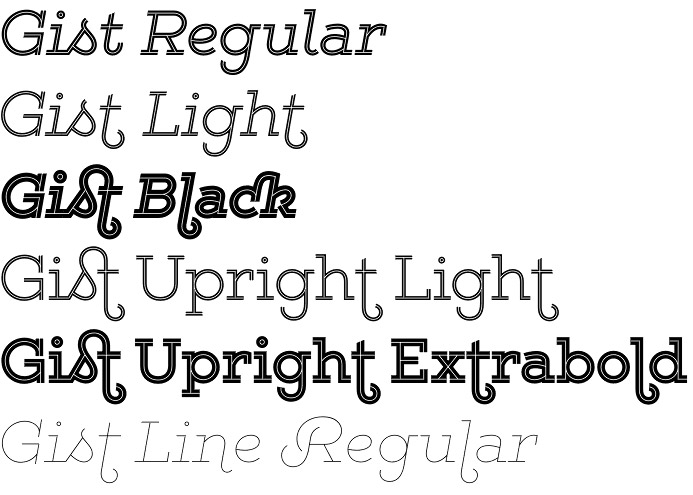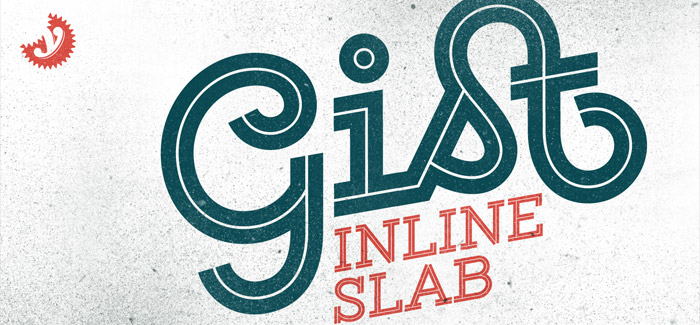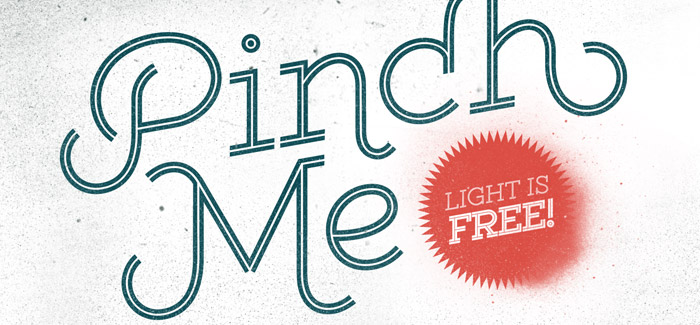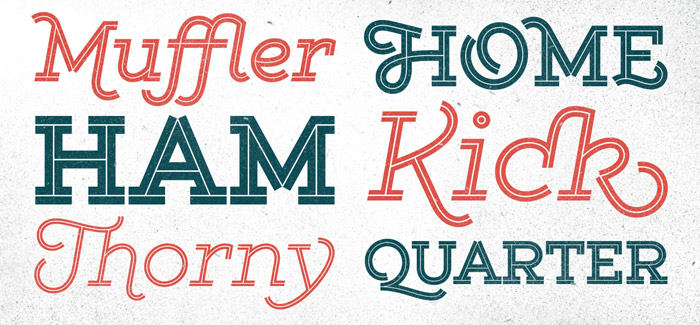
Gist font
Gist font by Ryan Martinson from Yellow Design Studio (check also their Thirsty Script font and Thirsty Rough font) is a dynamic inline slab serif, a retro vs contemporary mashup. Gist font family comes in four variations in five weights, each of them containing 627 glyphs per weight. It’s extremely versatile: either keeping it clear with the base character set, or using ligatures, alternates and swashes for all the bells and whistles. All-caps typesettings have an especially retro edge. Line layers for adding color to the inline areas are available. And last but not least – try Gist Light for free!
Opentype Feature Descriptions:
Ligatures – Enables the standard ligatures that fix overlapping letters
Discretionary Ligatures – Enables the funkier ligatures
Contextual Alternates – Enables the alternate caps and q, v, w, x, y, z alternates
Swash – Enables the swash caps
Stylistic Alternates – Enables the funkier h, k, m, n, v, w, y, z
Stylistic Set 1 (Same as Stylistic Alternates) – Enables the funkier h, k, m, n, v, w, y, z
Stylistic Set 2 – Enables the end-of-word alternates (terminal forms)
Stylistic Set 3 – Enables the alternate round lowercase a
Stylistic Set 4 – Enables additional alternate B, D, E, H, M, N, R,T, W, Z, &, d
Stylistic Set 5 – Enables additional alternate E, H, M, N, R, Z, d
Stylistic Set 6 – Enables additional alternate H, M, N
Stylistic Set 7 – Enables additional alternate l, t
Stylistic Set 8 – Enables additional alternate l, t
Stylistic Set 9 – Enables additional alternate l, t
Superscript – Enables the superscript characters